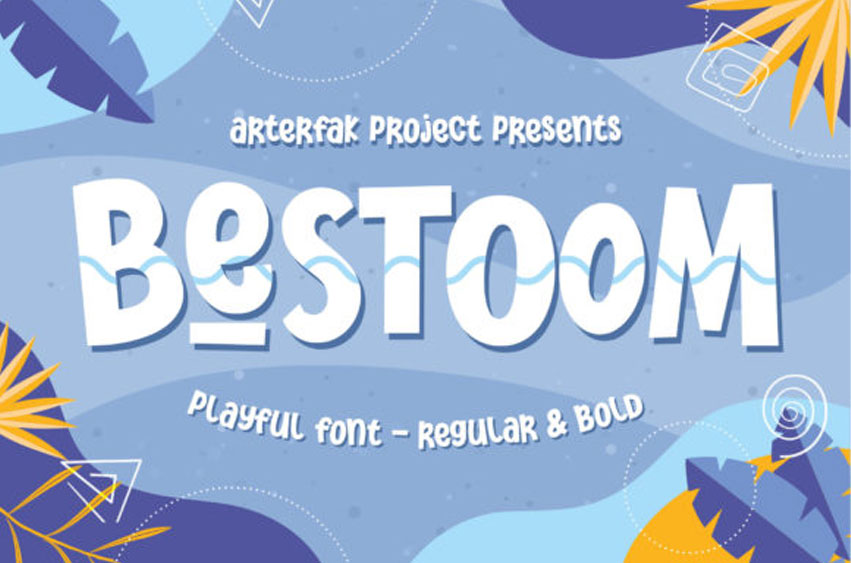
Bestoom Font
Bestoom Font is a playful and fun display font. Whether you use it for cartoon related designs, children games or just any creation that requires a lovely touch, this font will be an amazing choice.